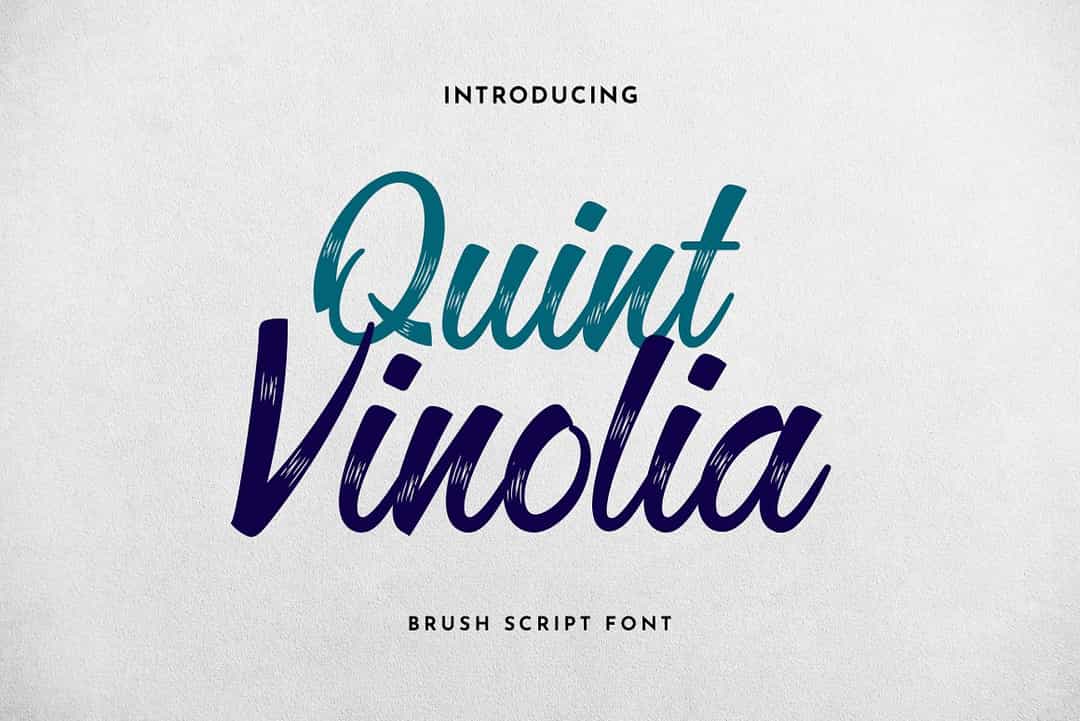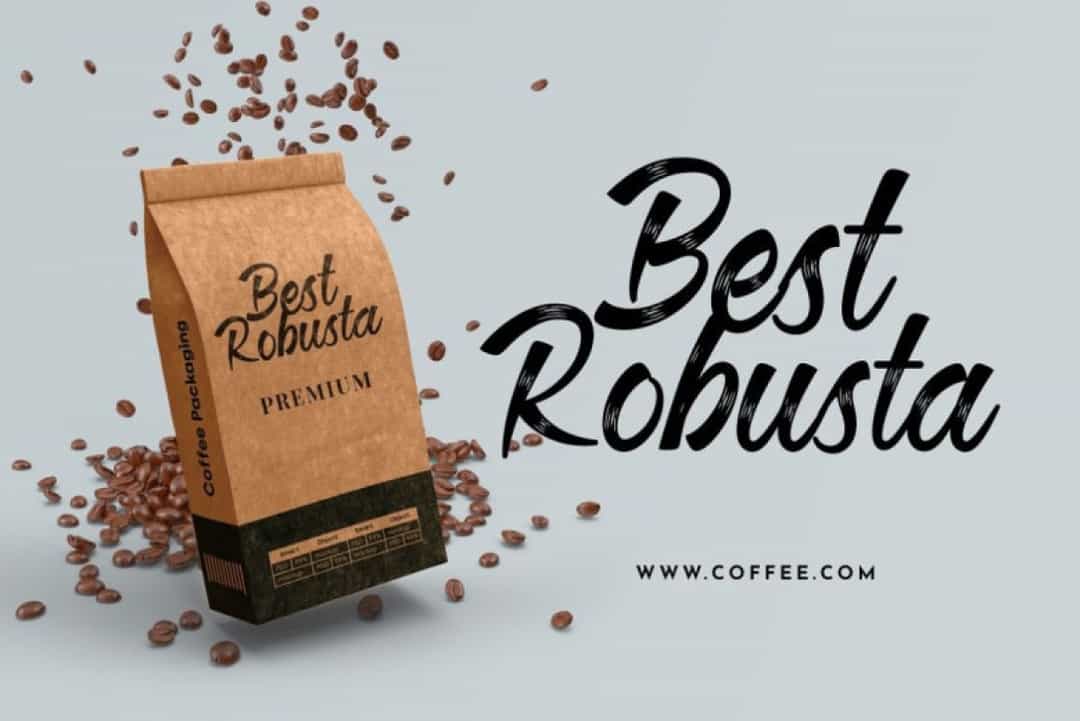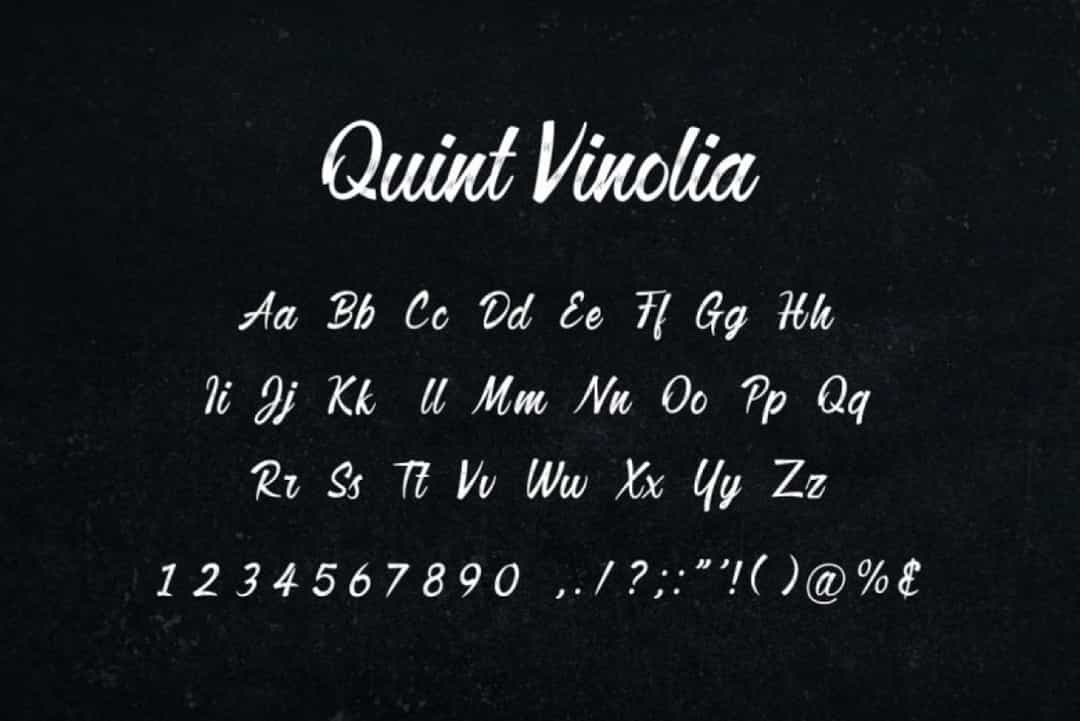
Quint Vinolia is an elegant handwritten script font with beautiful, balanced characters. As such, it can be found in many designs; use this font in your most creative ideas to see them come to life! This font can be applied to many designs, from stationary and signature cards to signature, wedding logo and typography quotes magazine, book covers headers on websites clothing packaging branding campaigns that show both feminine and masculine traits. Additionally, fashion-related branding design depicts both feminine and masculine characteristics.